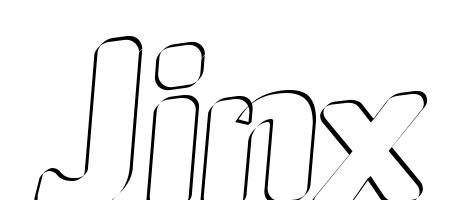
Jinx
By Andy Krahling
Jinx: A playful, slightly italicized sans-serif font. Its rounded edges and subtly exaggerated letterforms give it a bouncy, energetic feel. The strokes are consistent in weight, creating a clean and modern aesthetic, yet the slight curves inject a touch of whimsy. It's a versatile font suitable for logos, headlines, and playful text.